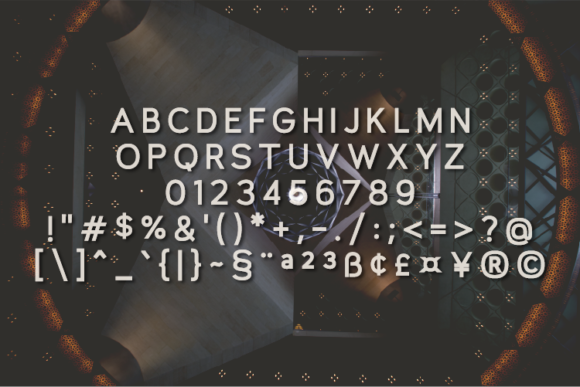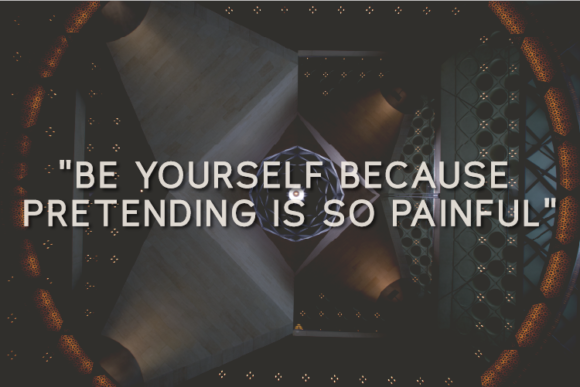
Introduction to Runevo Font
Do you remember that moment when a perfect font brought your creative project to life? It’s like the missing piece of the puzzle finally falls into place, and everything clicks. For designers, finding the right font can be a game-changer. It’s the difference between a good design and a great one.
That’s where the Runevo Font comes in – a simple yet authentic sans serif font that’s an asset to any design library. Its clean lines and minimalistic design make it versatile and perfect for any creative project. Whether you’re working on a design with a transparent background or need a high-quality font for your next big project, Runevo Font has got you covered.
Key Features of Runevo Font
- Runevo Font is a high-quality design resource ideal for creative projects, offering a unique and stylish aesthetic.
- Features a transparent background, allowing for seamless integration with various design elements and backgrounds.
- Unique characteristics include its bold and modern style, making it perfect for titles, headings, and other prominent design elements.
Honest Review: Runevo Font
As a designer, I’m always on the lookout for high-quality design resources to elevate my creative projects. The Runevo Font is one such resource that caught my attention, and I’m excited to share my honest review with you.
What works well: ✨ The Runevo Font offers a clean and modern aesthetic that’s perfect for minimalist designs. The font is highly legible, making it an excellent choice for body text. Additionally, the font is available for free download, which is a huge plus for designers on a budget. The transparent background option also makes it easy to use in various design scenarios.
What could be improved: ⚠️ While the Runevo Font is a great addition to any design collection, it’s not without its limitations. The font family is relatively small, with only a few weights and styles available. This might limit its versatility in certain design projects.
Overall, I’m impressed with the Runevo Font’s quality and usability. It’s a great resource for designers looking for a clean and modern font to enhance their creative projects. However, its limited family size is a drawback that might affect its usefulness in certain situations.
- High-quality design resource
- Excellent for minimalist designs
Introduction to Runevo Font
The Runevo Font is a high-quality, free design resource perfect for any creative project. Its unique style and transparent background make it an ideal choice for designers looking to add a touch of elegance to their work.
Tips for Getting the Most Out of Runevo Font
To get the most out of the Runevo Font, try combining it with other design elements, such as graphics and images, to create a visually appealing design. You can also experiment with different font sizes and colors to add depth and interest to your design.
The Runevo Font is perfect for a variety of design projects, including:
Wedding invitations, event programs, and other special occasion materials
Business cards, letterheads, and other marketing materials
Blog posts, articles, and other written content